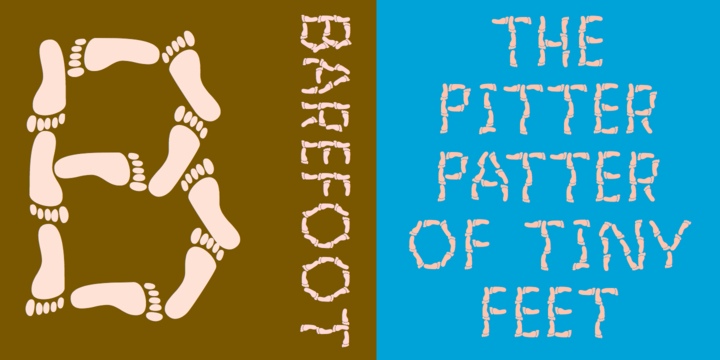
Barefoot Font
Barefoot Font is perfect for natural lifestyle branding, organic product packaging, wellness center signage, bohemian fashion labels, mindfulness app interfaces, yoga studio communications, eco-friendly campaigns, outdoor adventure brands, sustainable living magazines, and free-spirited artistic projects.
What makes Barefoot Font so exciting is its liberating sense of freedom and natural authenticity that perfectly captures the essence of unrestrained living and connection to nature through flowing, organic letterforms that feel as comfortable and unrestricted as walking barefoot on warm sand. This typeface embodies the spirit of natural living through its relaxed structure and earthy character that immediately communicates simplicity, authenticity, and freedom from conventional constraints. The font's compelling appeal stems from its ability to convey genuine naturalness, carefree lifestyle, and earth-connected values while maintaining professional quality for contemporary wellness and lifestyle applications.
Barefoot Font comes in multiple weights and styles including Light, Regular, Medium, and Bold variations, along with nature-inspired alternates, organic ligatures, and earth-tone decorative elements that provide comprehensive design solutions for natural lifestyle brand systems.
Whether you're developing wellness brand identities, creating natural product marketing, or designing bohemian lifestyle communications, Barefoot Font Free Download delivers authentic organic appeal and free-spirited personality. This versatile typeface excels across all natural lifestyle applications, from intimate wellness materials to large-scale outdoor festival signage, maintaining its earthy character while ensuring excellent readability. The font's naturally flowing letterforms feature organic variations and relaxed spacing that create text with genuine barefoot freedom and natural living authenticity.
Wellness professionals and natural lifestyle brands consistently choose Barefoot Font for projects requiring authentic organic appeal and free-spirited positioning. Its natural styling makes it particularly effective for yoga studios, wellness centers, organic brands, and bohemian lifestyle companies seeking to communicate freedom, natural connection, and authentic living. The font's liberated personality and earth-connected authenticity create immediate resonance with audiences seeking natural lifestyle experiences while communicating values of simplicity, freedom, and natural harmony that are essential for brands targeting wellness-conscious and environmentally aware consumers.